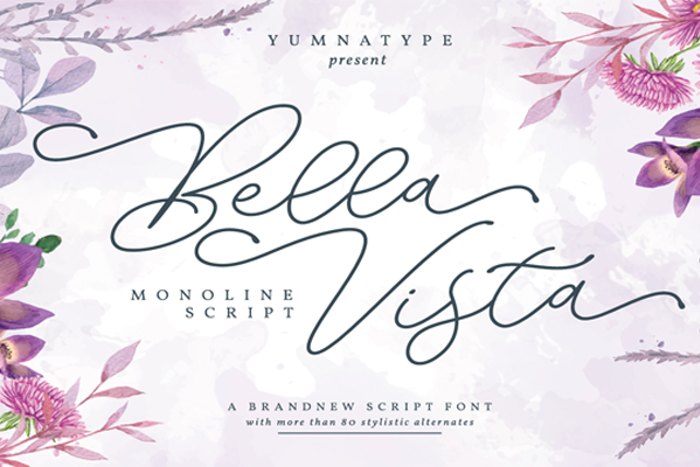
Bella Vista Font
Bella Vista – Monoline Script. Made from monoline style. it will make your design project more beautiful. The font is suitable for any design like branding, fashion, print template, quotes, wedding and etc. The font includes full set of hand lettered uppercase and lowercase letters, numerals, punctuation, and ligatures.
Features include:
• Alternates
• Ligatures
• Multilingual Supports
• Numerals and Punctuations